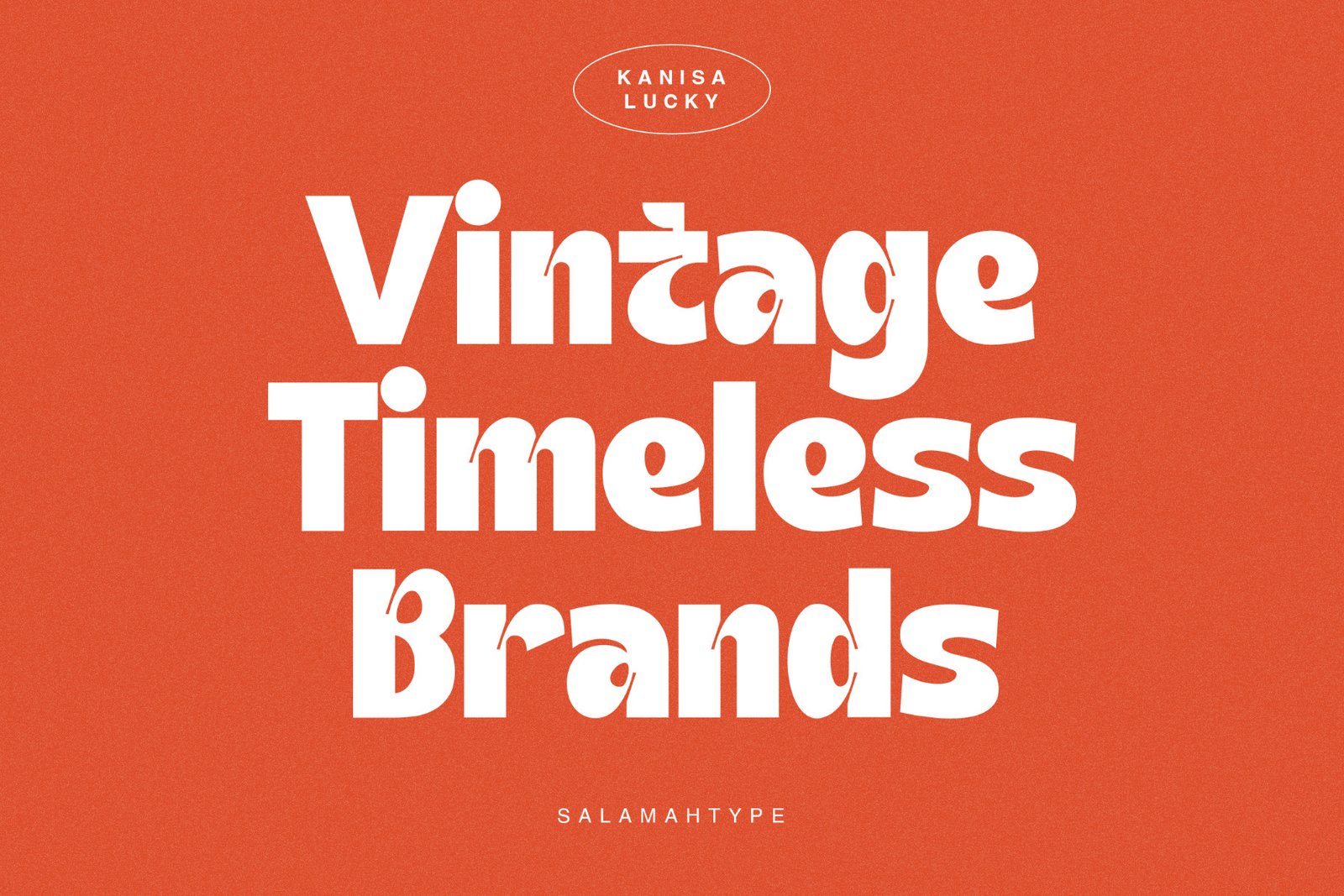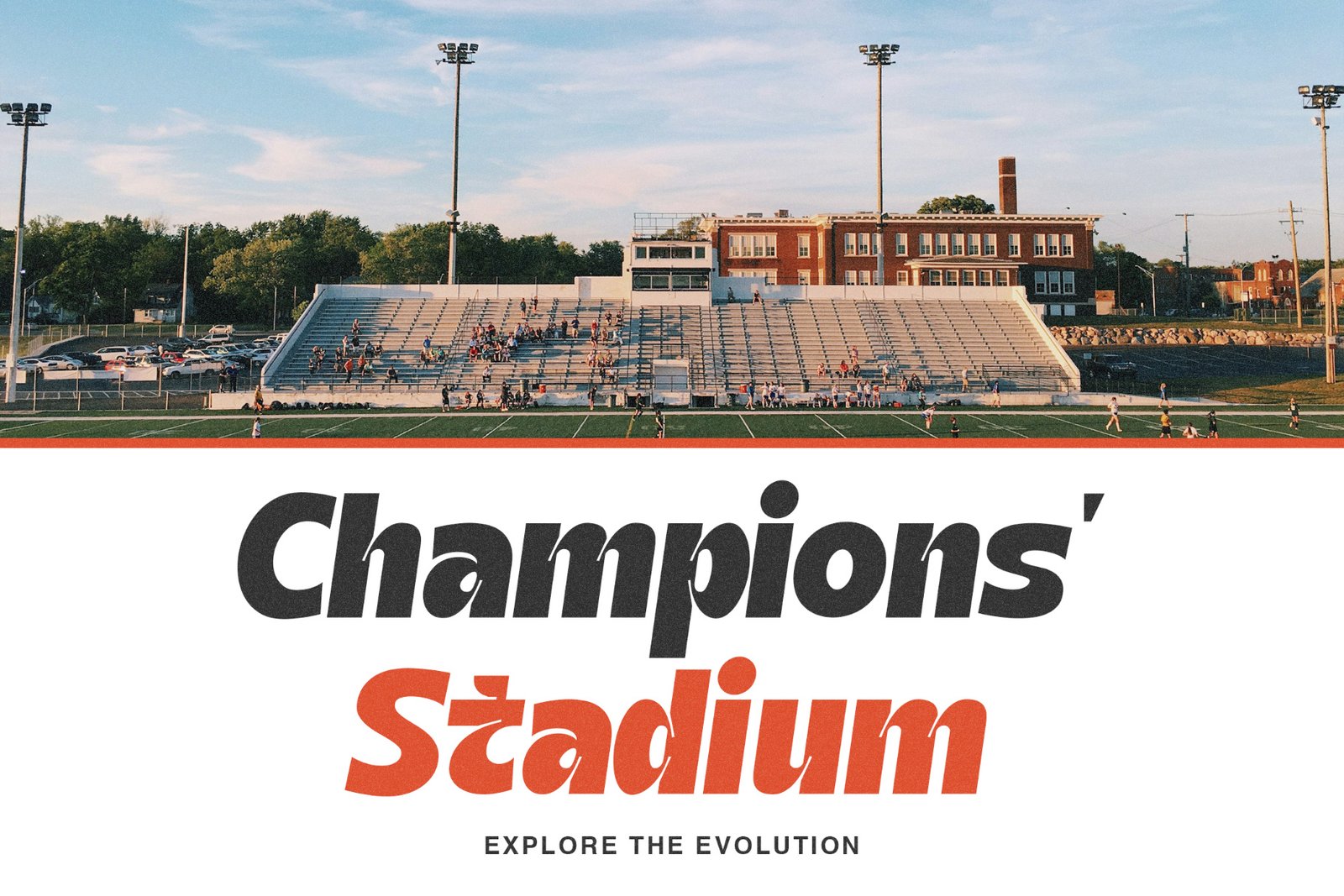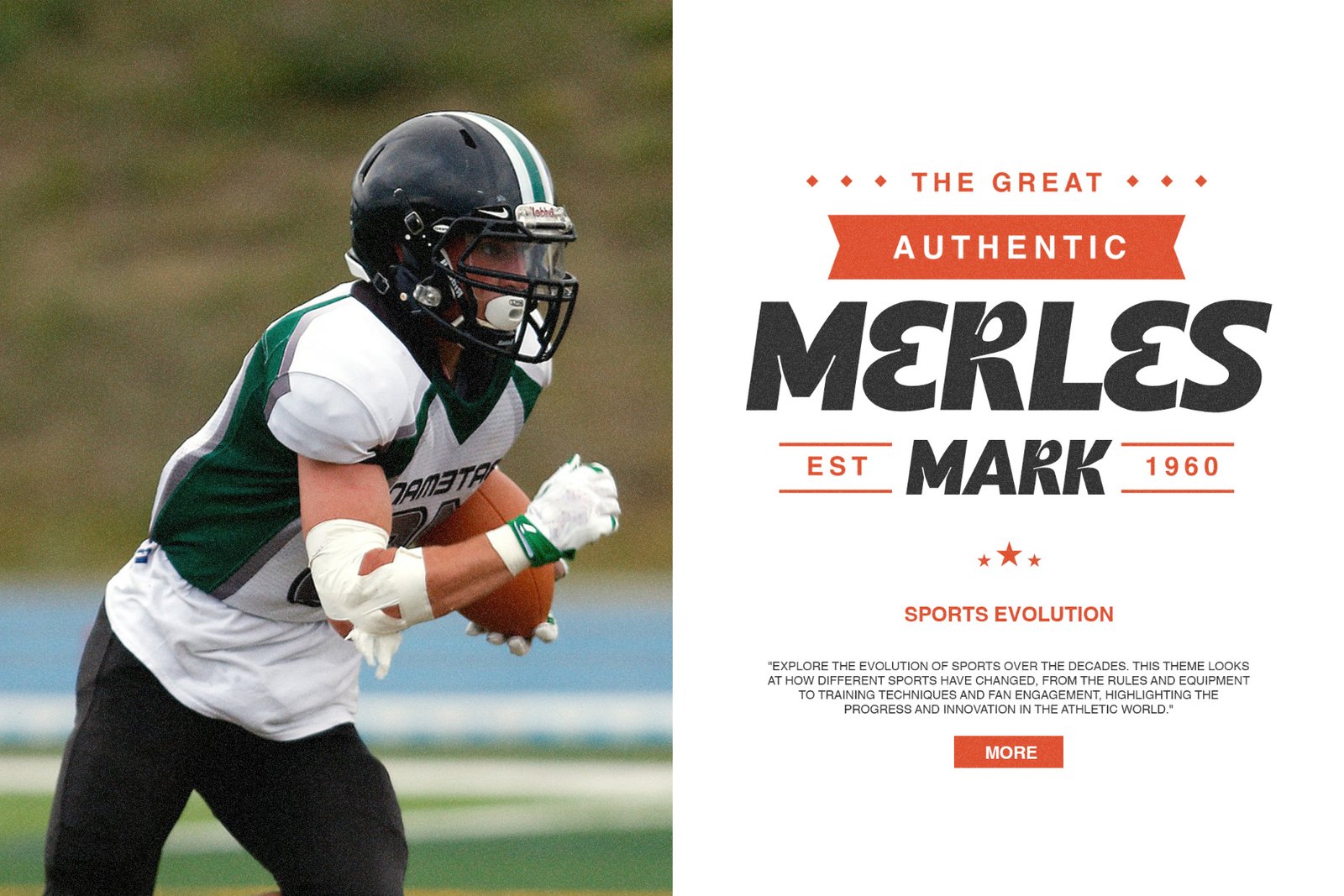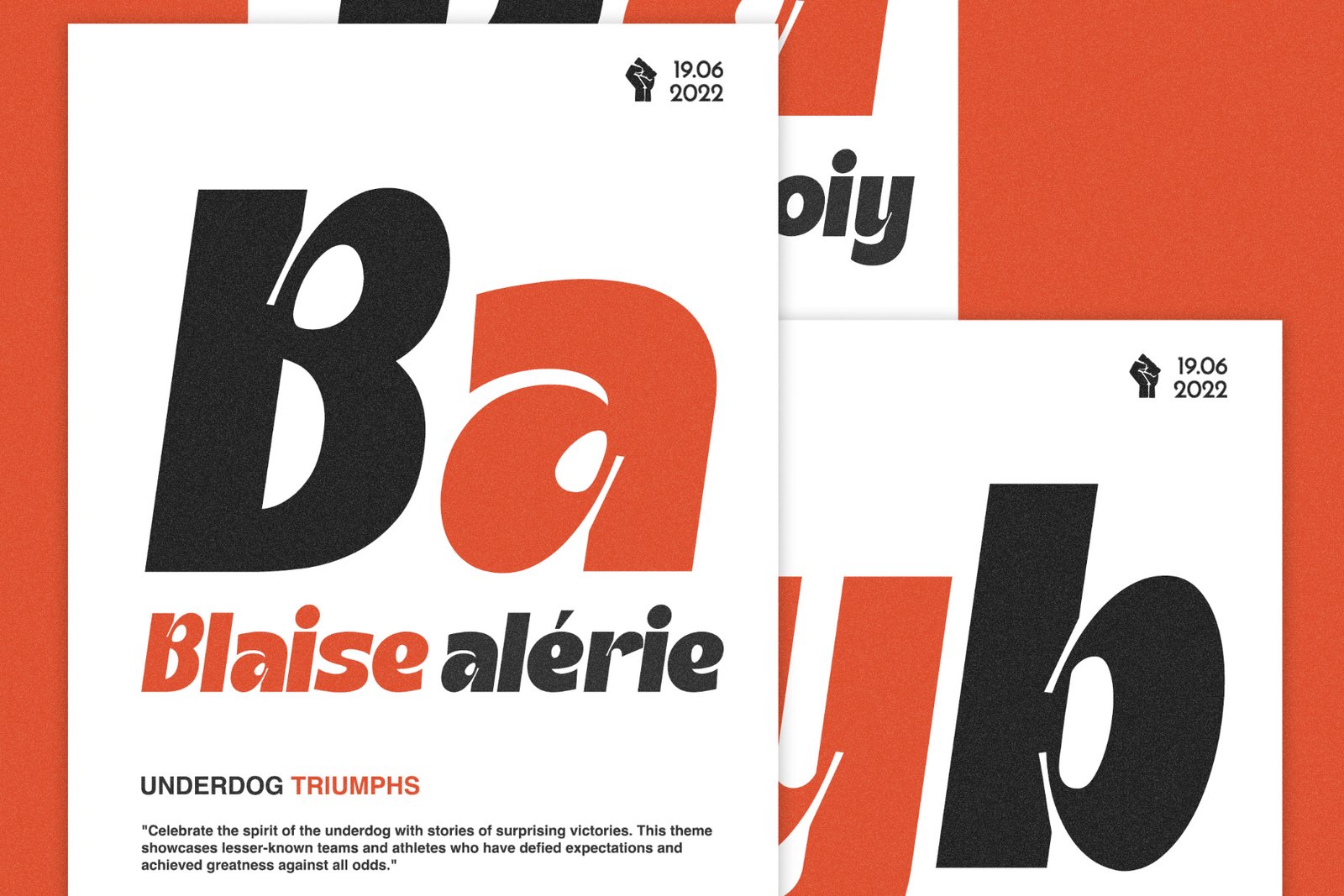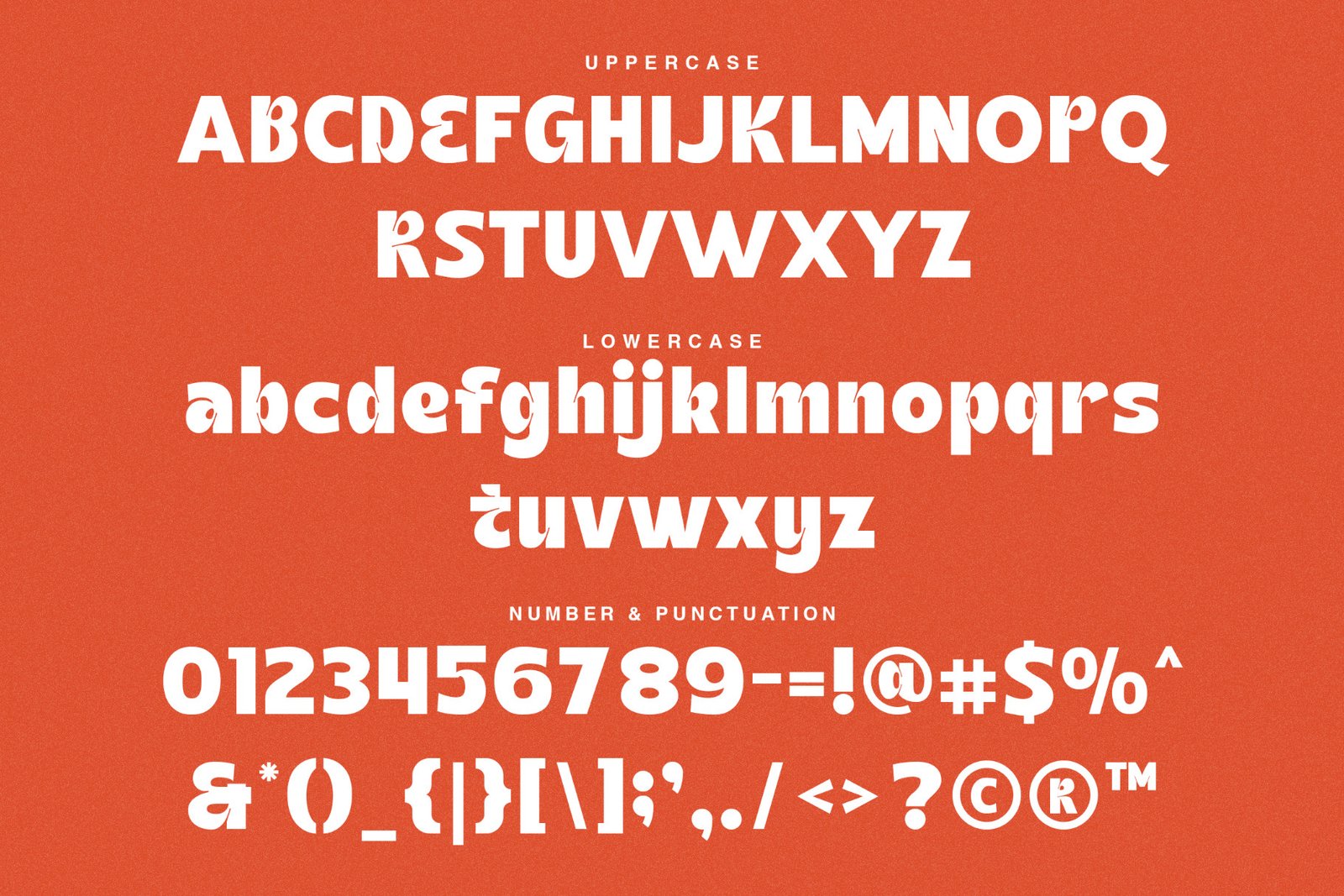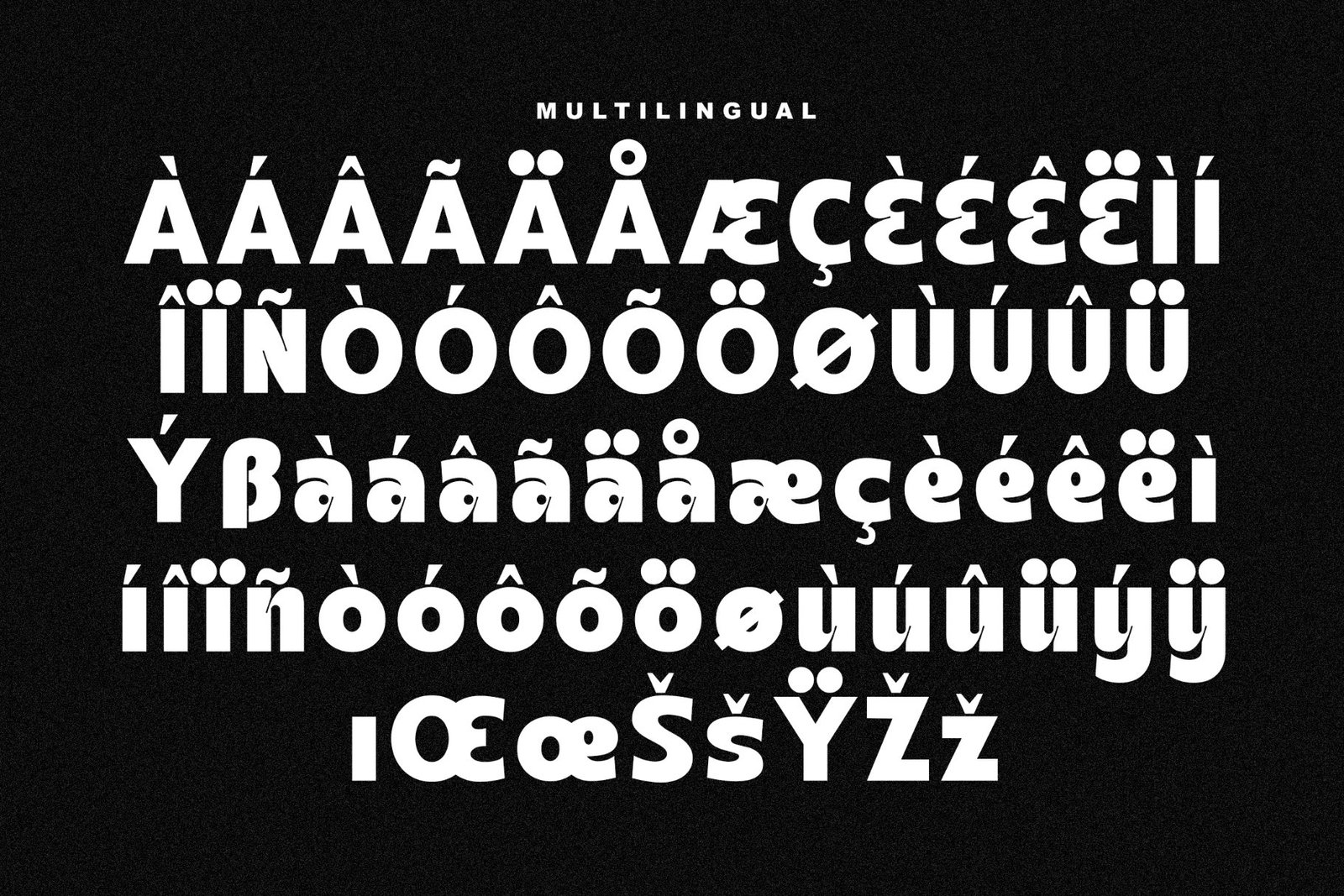
Kanisa Lucky - Modern Bold Font
About the Font
Kanisa Lucky is a bold typeface that features a unique ink trap style, making it a great choice for logos, headlines, sport flyers, magazines, and books. It comes in two styles: regular and oblique, giving you flexibility for various design needs. Whether you want a strong presence or a dynamic look, Kanisa Lucky is perfect for making your text stand out in any print media.
Font Features:
• Uppercase and Lowercase
• Regular and Oblique Style
• Symbols and Punctuation
• Multilingual Support